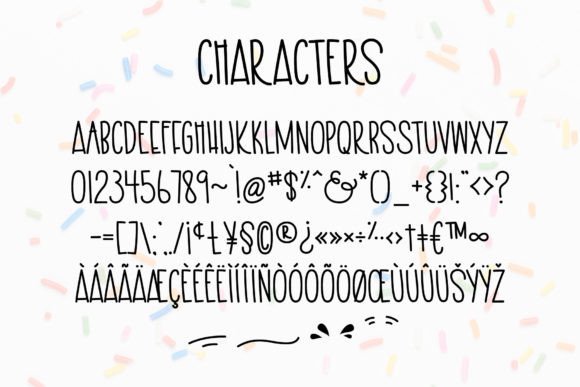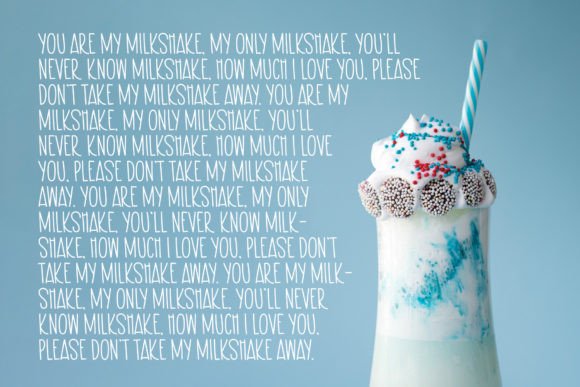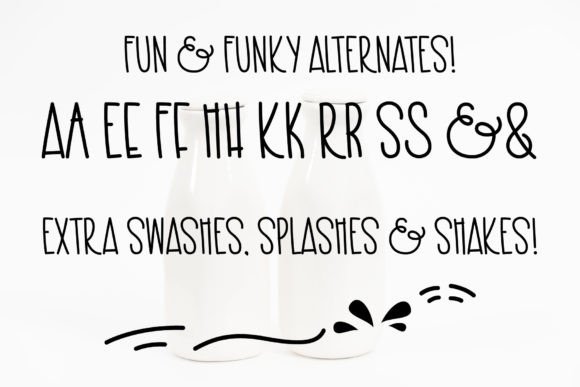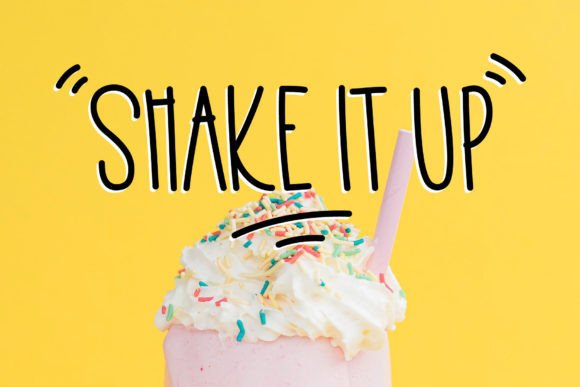
Introduction to Milkshaker Font
Have you ever found yourself staring at a blank canvas, desperately searching for the perfect font to bring your creative project to life? I’m sure we’ve all been there, and it’s moments like these that make us appreciate the little things in life – like discovering a hidden gem in the world of design resources.
Enter the Milkshaker Font, a funky and fun all-caps handwriting font that’s about to shake up your design game. With its playful flair and high-quality design, this font is a must-have for any creative project. And the best part? It’s completely free to download and use, making it an invaluable addition to your design arsenal.
Whether you’re working on a project with a transparent background or just need a font that adds a little extra personality, the Milkshaker Font is sure to deliver. Its unique style and versatility make it a valuable resource for designers of all levels, and its high-quality design ensures that your work will stand out from the crowd.
Key Features of Milkshaker Font
- Features a unique, stylish design that can elevate any creative project
Honest Review: Milkshaker Font
As a designer, I’m always on the lookout for high-quality design resources that can elevate my creative projects. The Milkshaker Font is one such resource that caught my attention. In this review, I’ll share my honest thoughts on what works well and what could be improved.
- Creamy Texture: The Milkshaker Font features a beautiful, creamy texture that adds a touch of warmth to any design.
- Limited Font Styles: The Milkshaker Font offers a limited range of font styles, which may not be sufficient for designers who require more options.
- May Not Suit Formal Designs: The font’s playful, handwritten feel may not be suitable for formal or professional designs.
Overall, the Milkshaker Font is a great addition to any designer’s toolkit. Its unique texture and free download option make it an excellent choice for creative projects. However, designers who require a wider range of font styles or more formal designs may want to consider alternative options.
For the best results, use Milkshaker Font on a transparent background or with a high-quality image. This font is ideal for creative projects that require a modern, unique touch. Some common use cases include:
Alternatives to Milkshaker Font